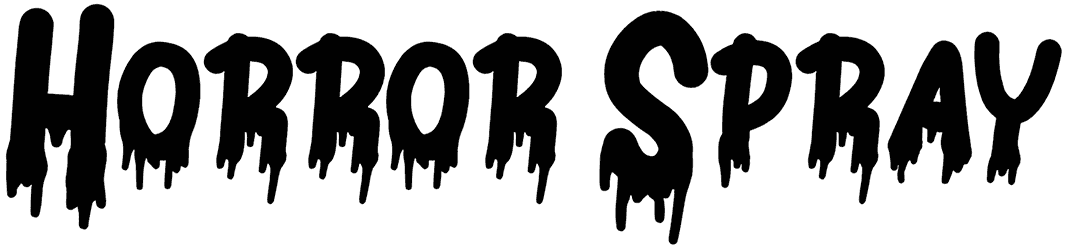
Horror Spray Font
Horror Spray is a bold font with drops of blood overflowing in the lower parts, creating a terrible mood in your writing. Two capital letters set in this Halloween font can be well combined and bring you the best result in marketing.
So don’t worry about the lack of small letters; press the download button confidently. With this, you have a powerful dripping font that can make your posters, ads, and apparel stand out from the crowd.